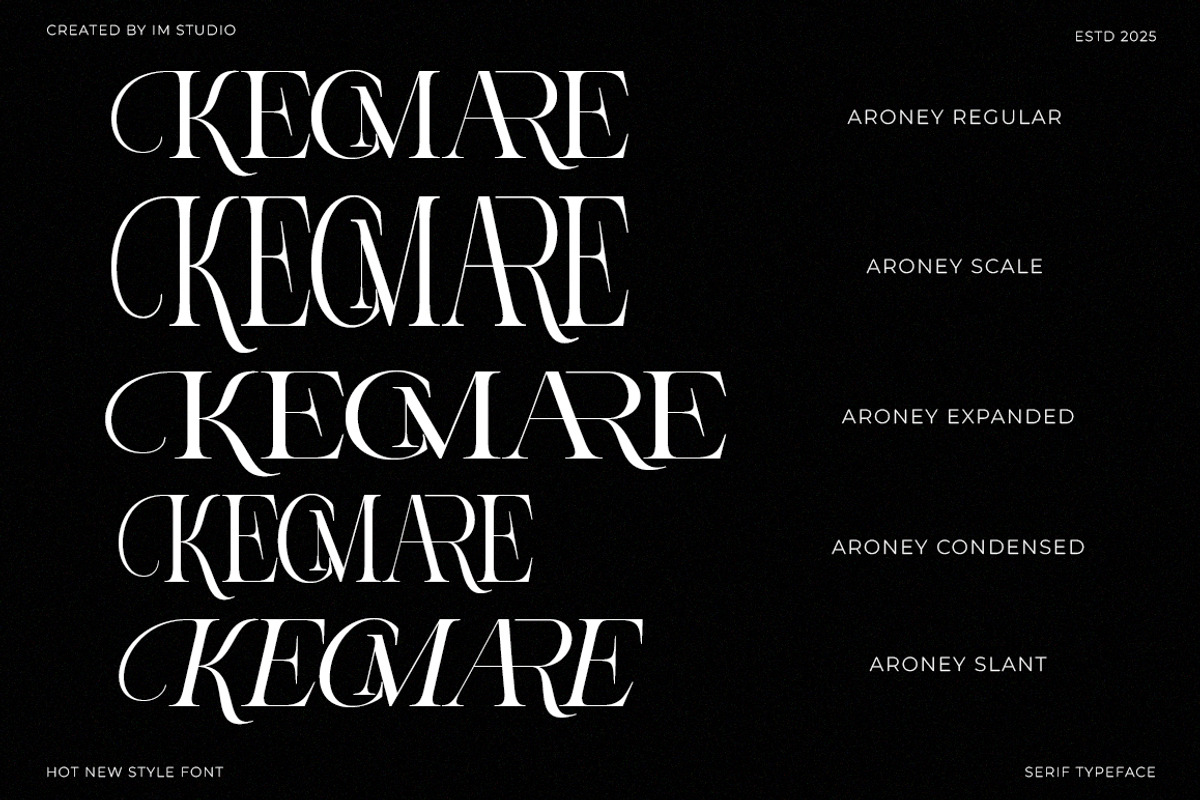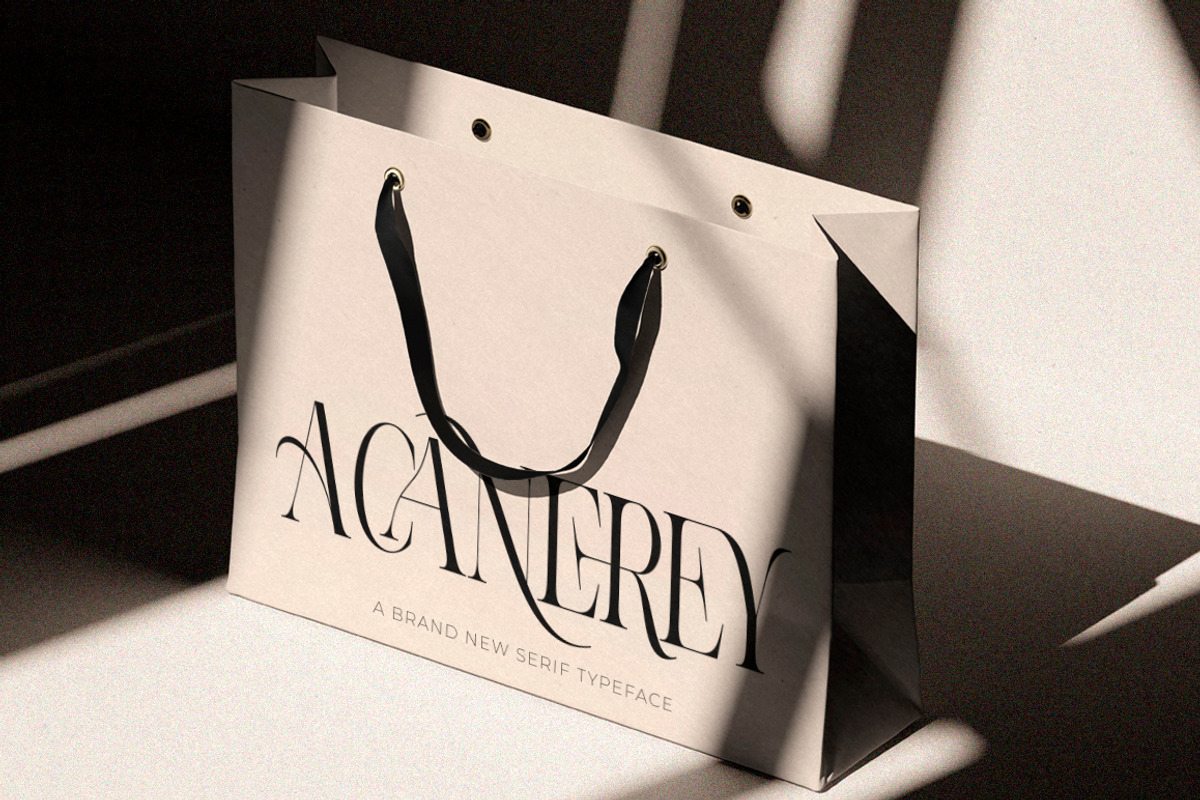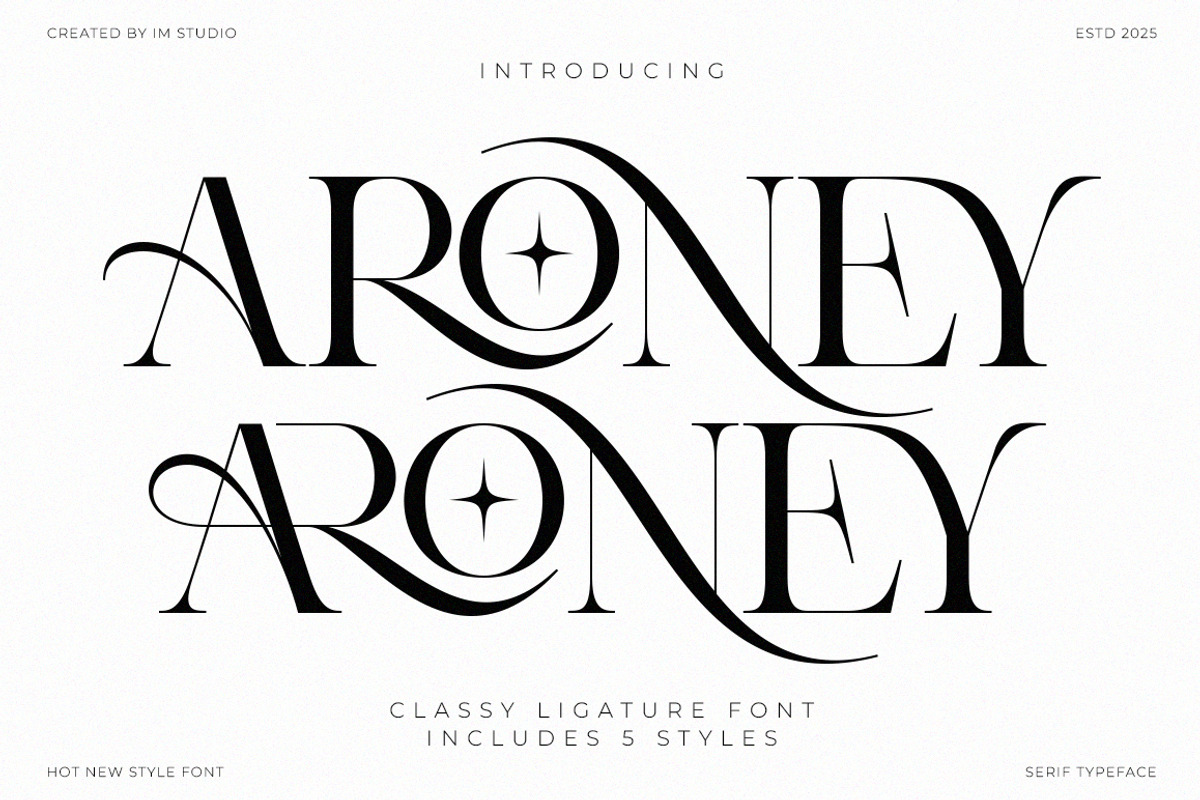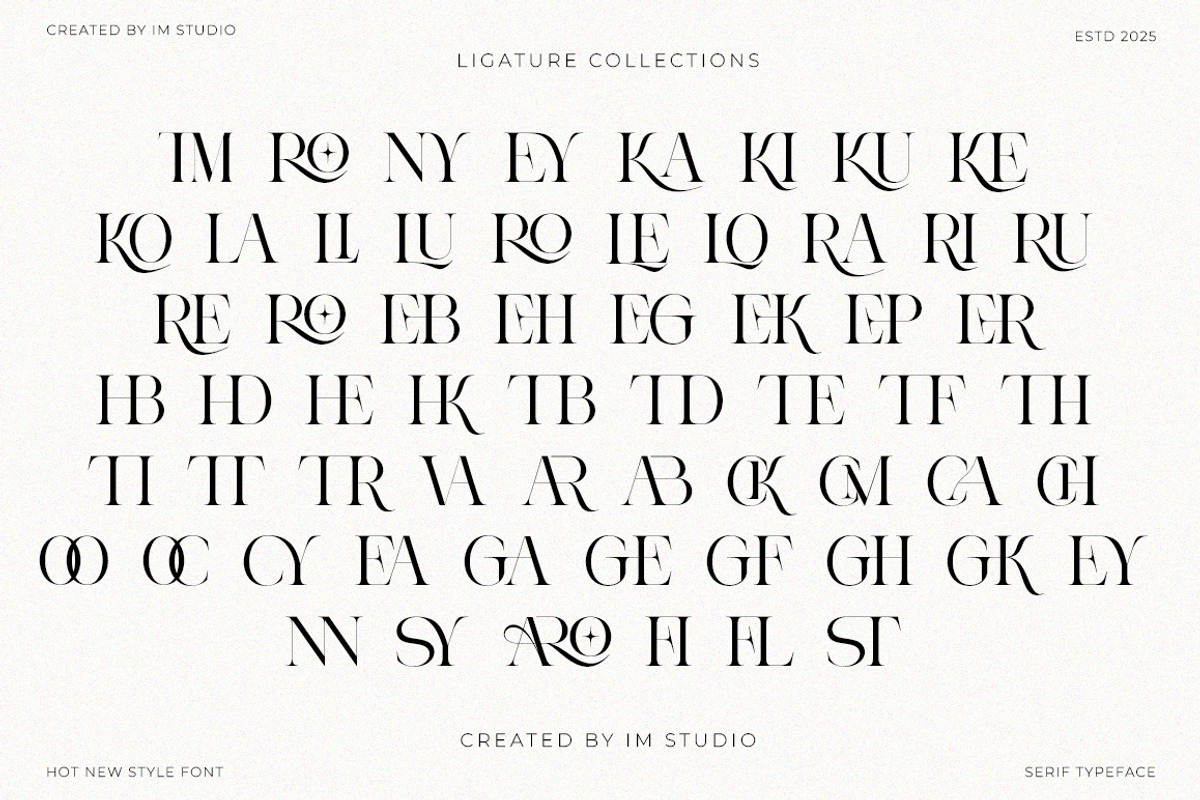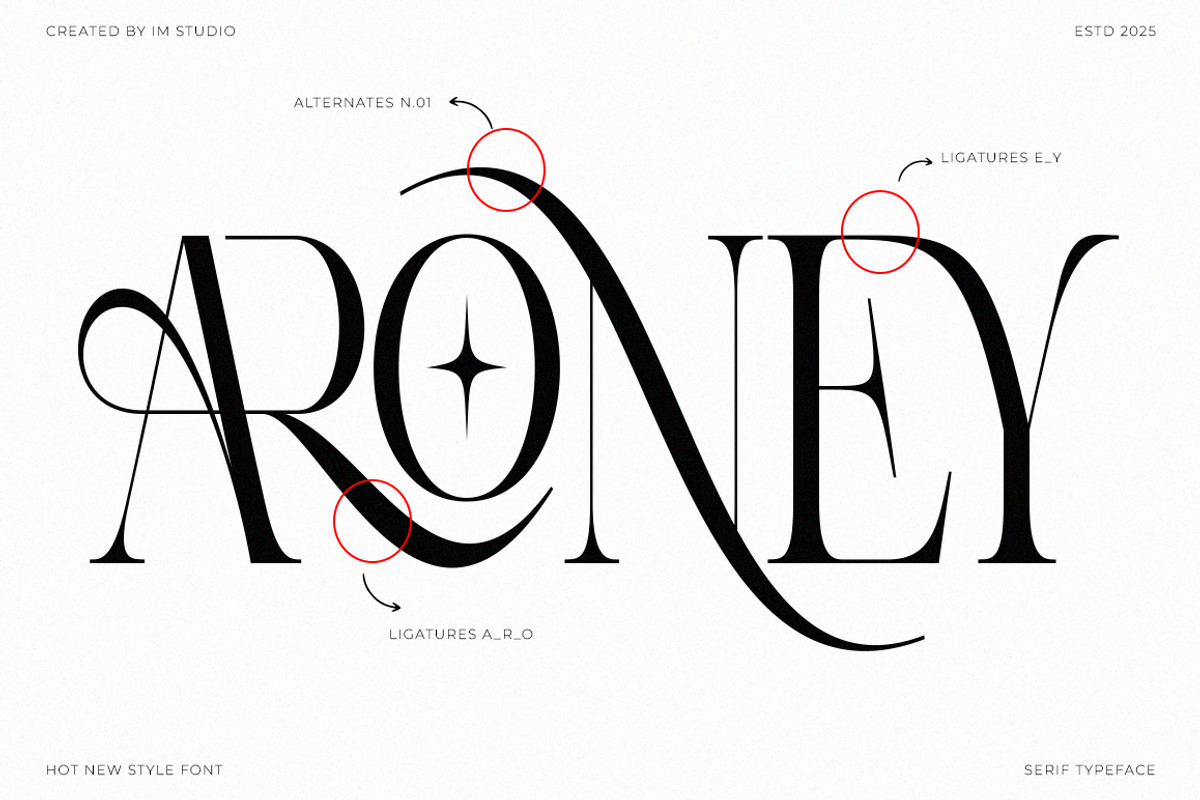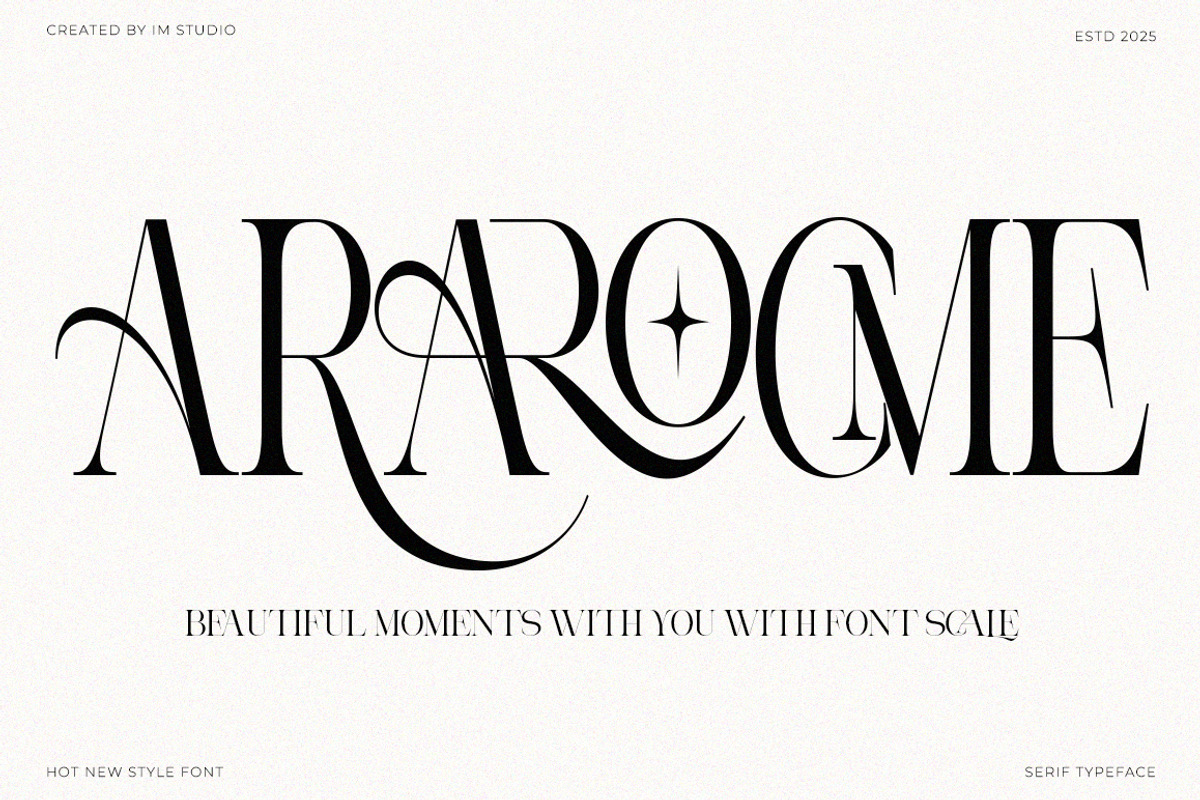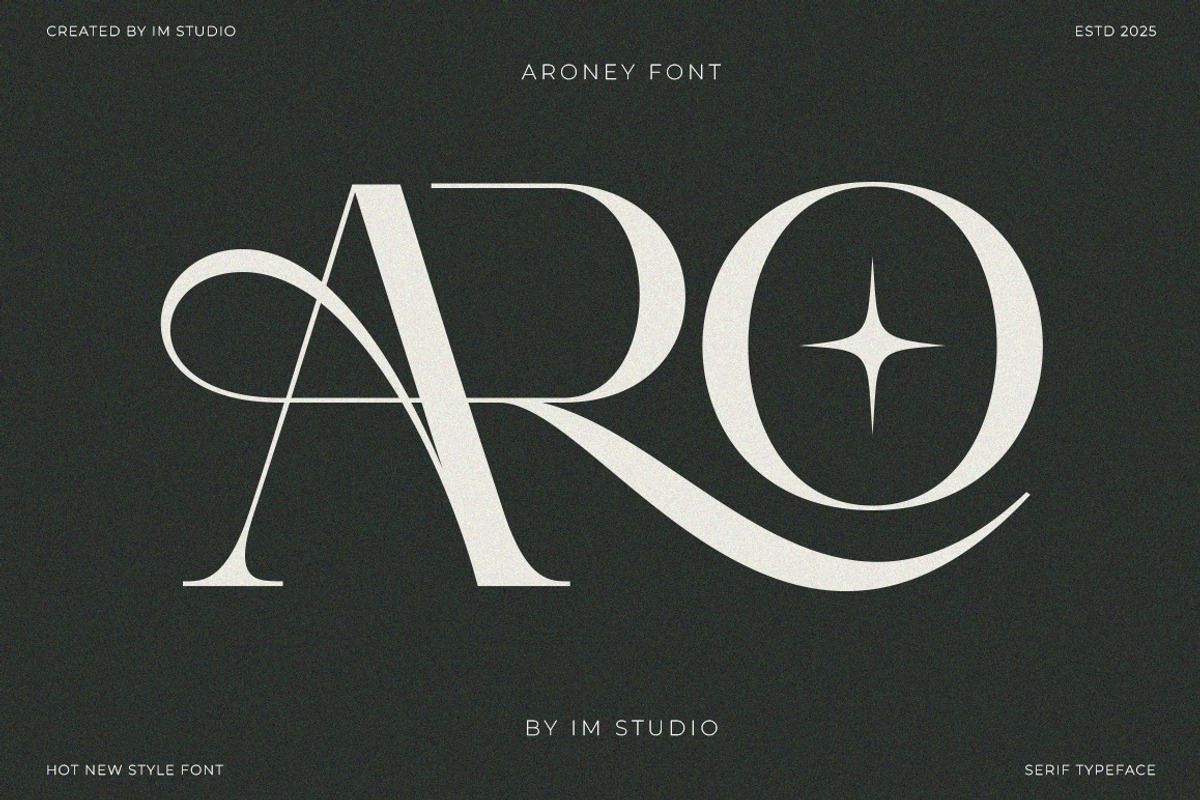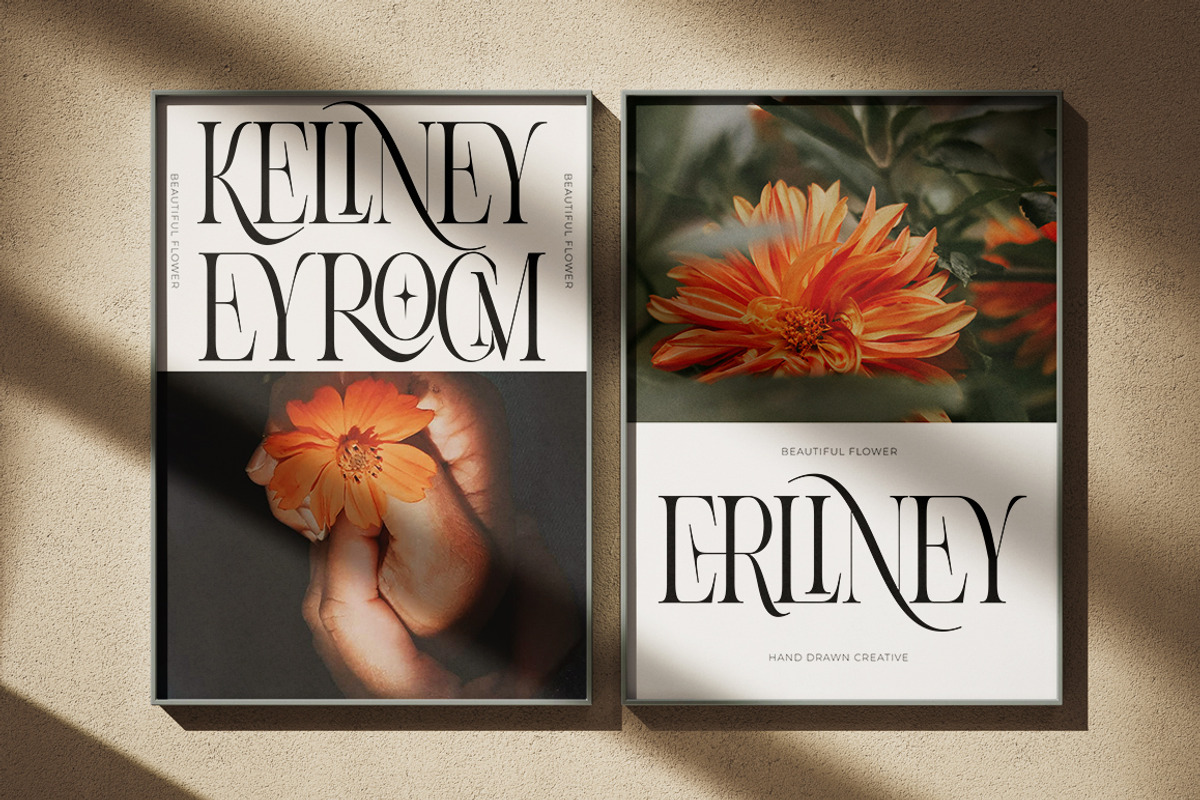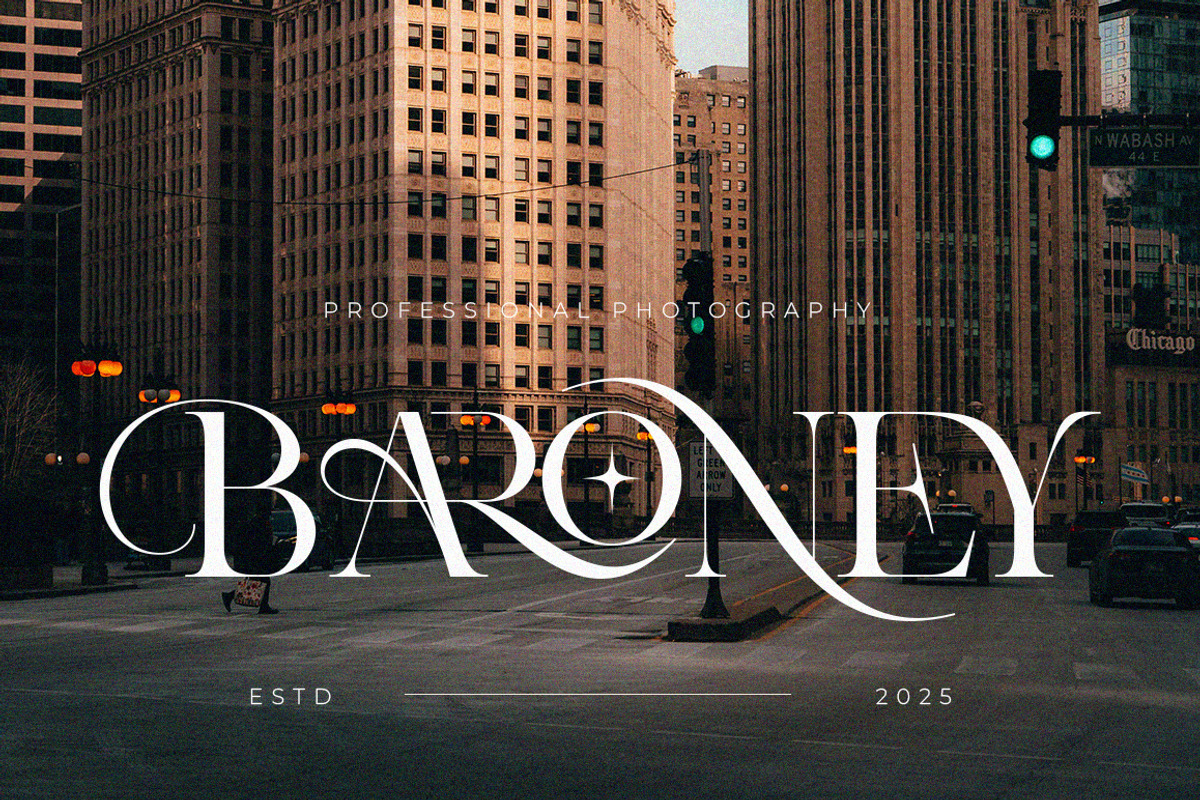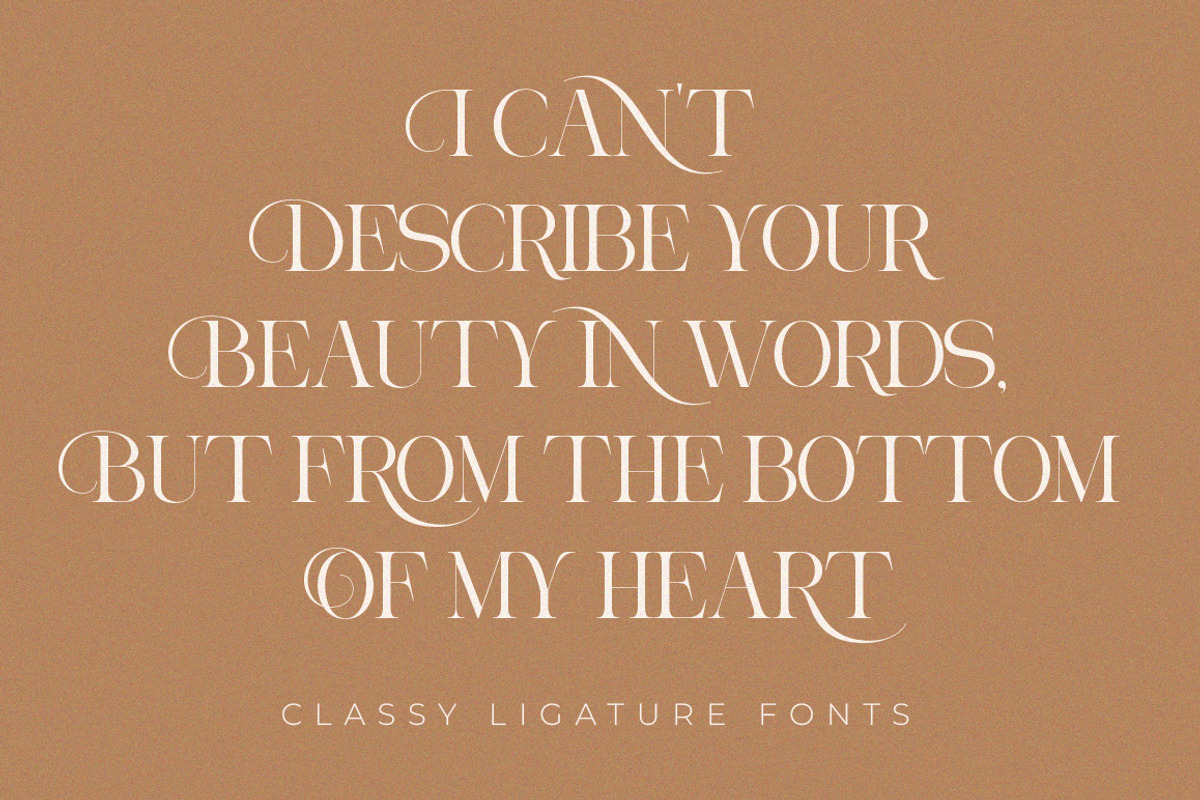
Aroney Family | 5 Style Fonts
Aroney Family – Elegant & Unique Typeface for Branding
Aroney Family is an elegant font with a unique touch specifically designed for branding and logo design. Inspired by our experience designing visual identities for various companies, this font is designed to meet the need for a classy yet distinctive typographic style.
With Aroney Family, you can create an elegant, professional, and memorable logo. This font is also perfect for a variety of other creative design needs.
Full features:
Capital font
Multilingual symbols